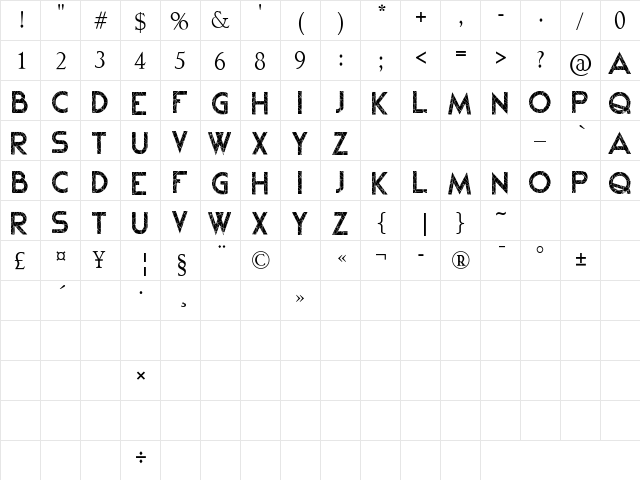
Ice Mirror in Winter Kei Regular
Design Context for Ice Mirror in Winter Kei Typeface
Ice Mirror in Winter Kei takes a measured approach to typography — its balanced proportions and neutral character make it a reliable workhorse for both digital and print work.